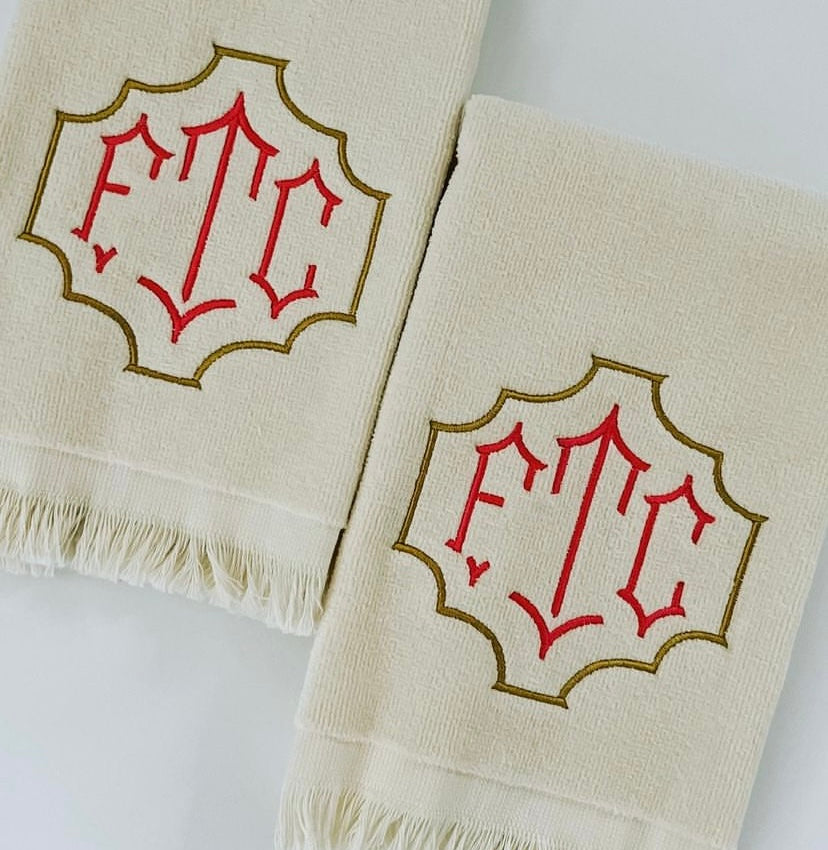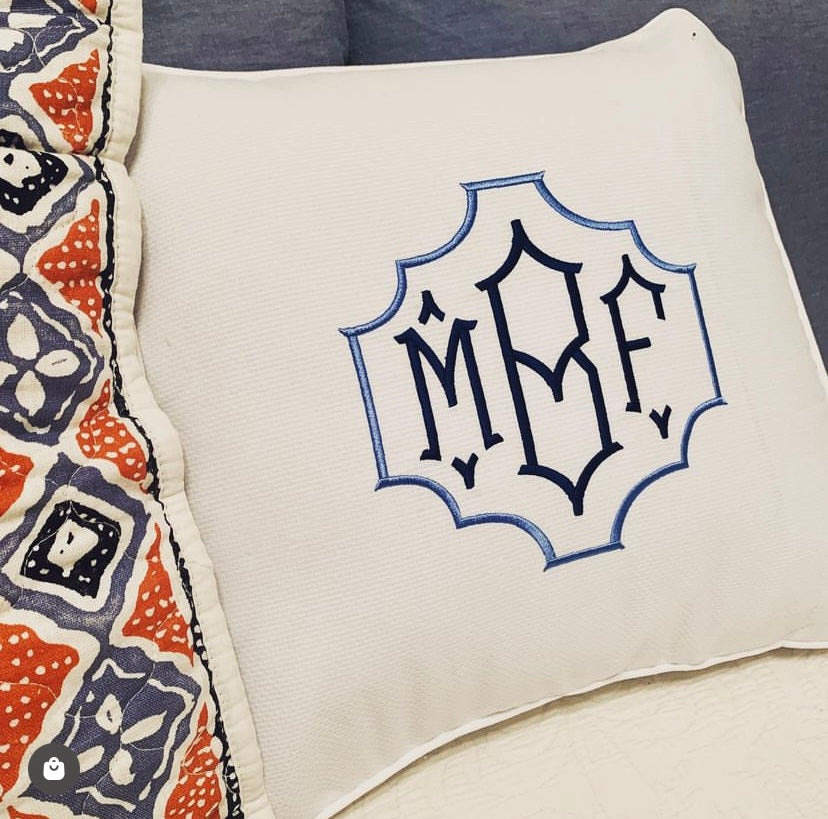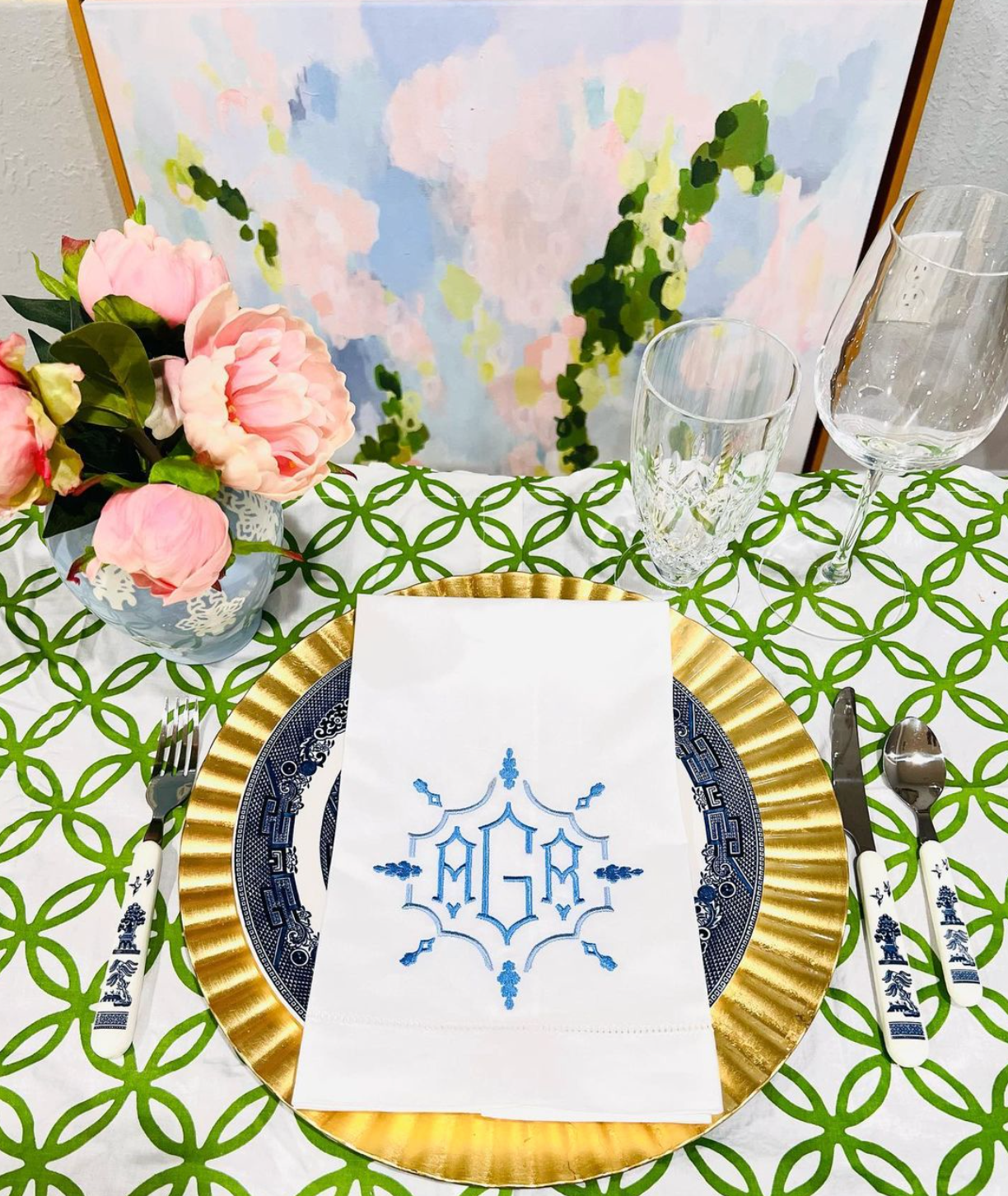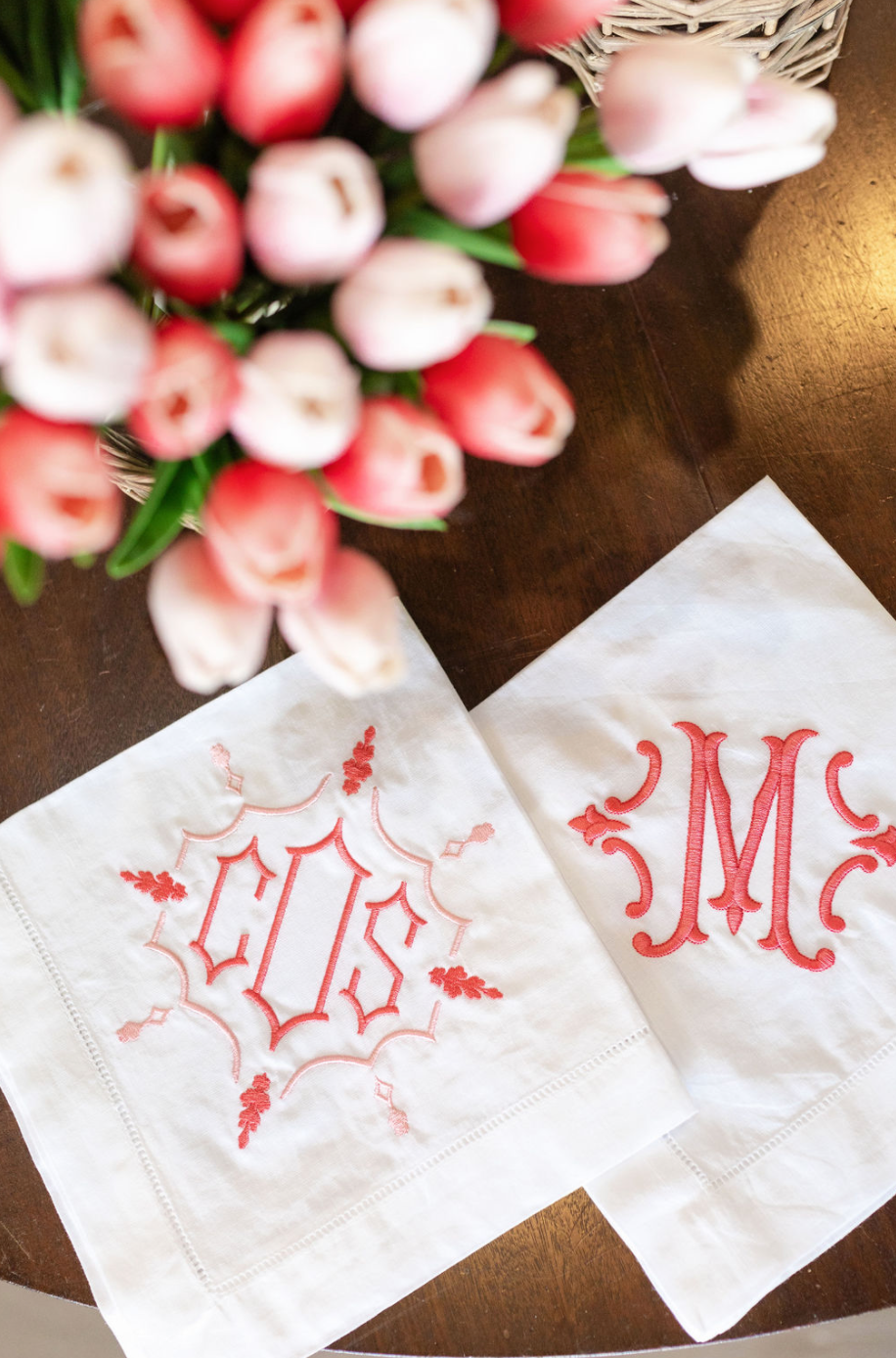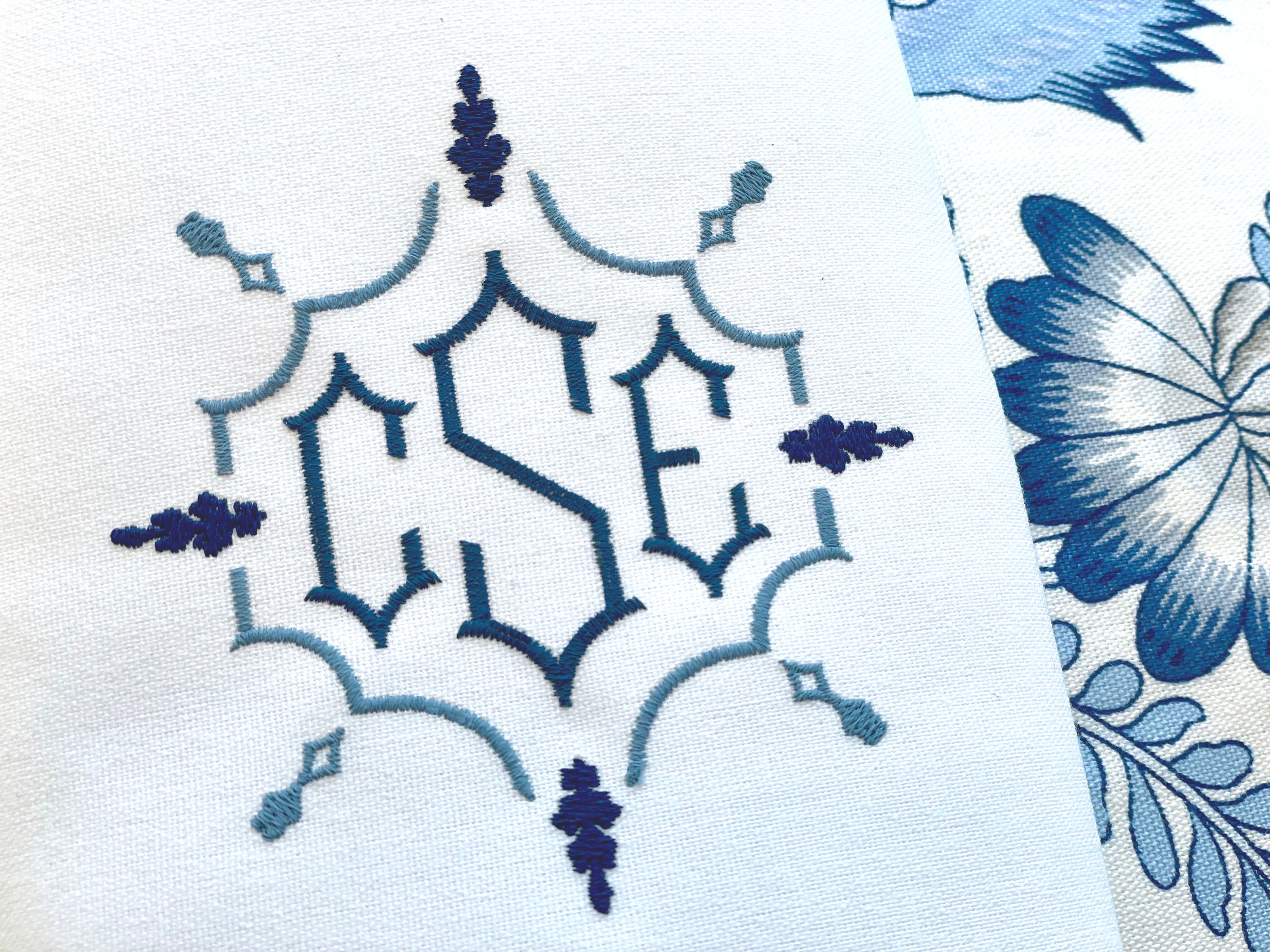
Monogram Chinoiserie Font for Embroidery
Monogram Chinoiserie is an elegant and unique take on traditional Chinoiserie designs - perfect for linen napkins, bedding, and more. The package includes 26 center letters, 26 letters for the left/right sides, and 3 beautiful frames to complement each monogram. This packages comes in:
Perfect for embroidery, the careful attention in the digitization of each design makes personalization unique and beautiful!